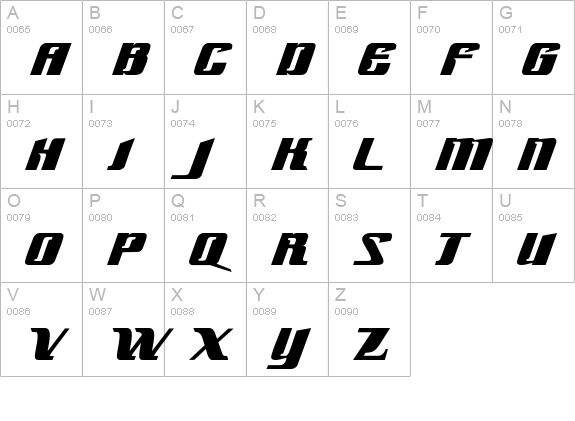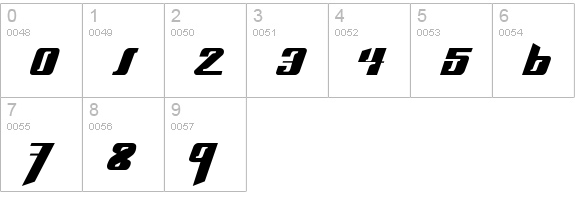
Slick69 Font Details
Introducing Slick69, a captivating and stylish font that will instantly elevate your designs to new heights. With its sleek and modern appearance, this typeface exudes confidence and sophistication, making it perfect for a wide range of creative projects. Slick69 boasts clean lines and crisp edges, creating a polished and professional look that will impress your audience. Whether you're designing a logo, crafting a brand identity, or creating eye-catching headlines, this font is sure to make a lasting impression. What sets Slick69 apart is its versatility. It can be used for both headlines and body text, allowing you to maintain consistency throughout your designs. Its legibility ensures that your message will be conveyed with clarity and impact. But perhaps the most enticing aspect of Slick69 is that it is absolutely free. That's right, this stunning font can be downloaded at no cost from FontsMarket.com, a trusted source for high-quality fonts. By offering Slick69 for free, we aim to empower designers and provide them with the tools they need to bring their visions to life. So why wait? Give your designs the edge they deserve with Slick69. Download it today at FontsMarket.com and witness the transformative power of this remarkable font.